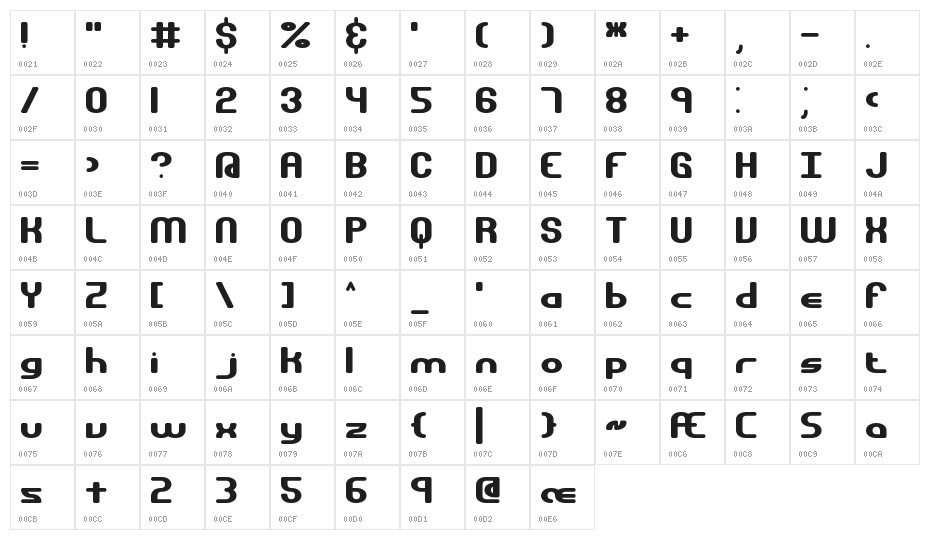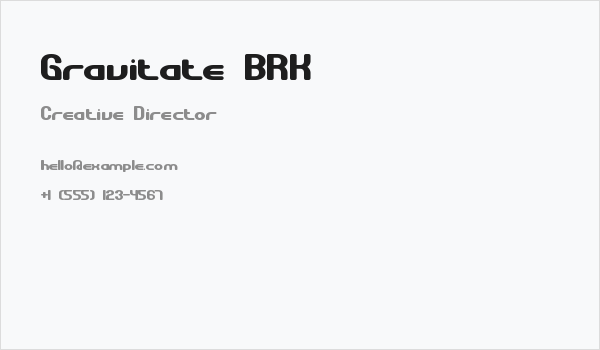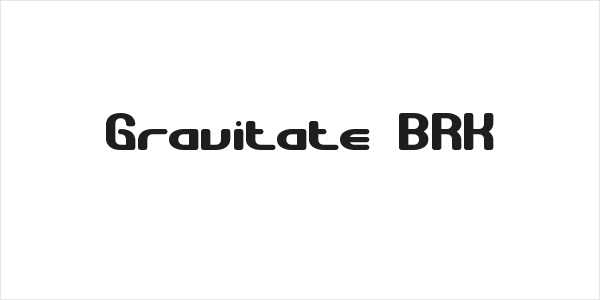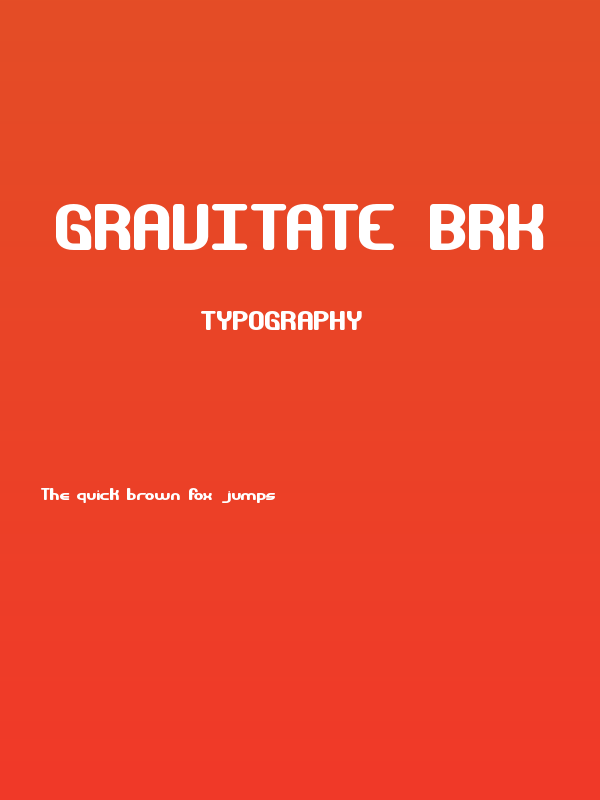
Gravitate BRK Font
Gravitate BRK Description
This font features a bold and rounded style with a modern and playful appearance. The characters are uniformly thick, giving it a strong presence. The rounded edges and consistent stroke width create a friendly and approachable look. The uppercase and lowercase letters maintain a consistent design, with a slight variation in height and width that adds to its charm. The numerals and special characters follow the same design principles, ensuring a cohesive appearance across all glyphs. This font is ideal for projects that require a bold and distinctive typeface.
| Proposed Projects | Ideal for branding, headlines, posters, and any design that requires a bold and modern typeface. |